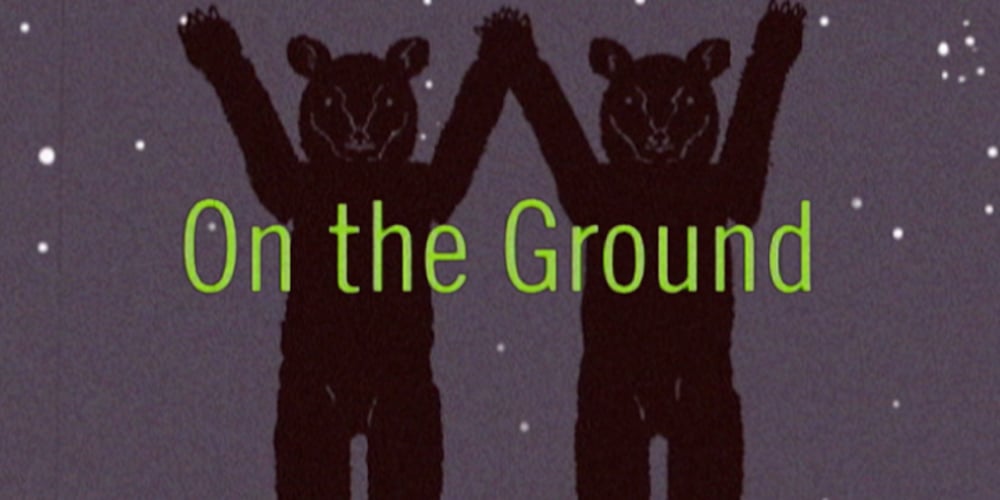
On The Ground Font Family was designed by Jason Warriner and published by Fascination Workshop. On The Ground contains 1 styles and family package options. On the Ground is a picture font made from drawings of found objects. These object were found on the ground while walking around different cities in the United States. The font uses varying drawing styles (from detailed to pictographic) but they all have a similar irregularity, unifying the characters. Perfect for animations, signs, greeting cards, posters, etc.